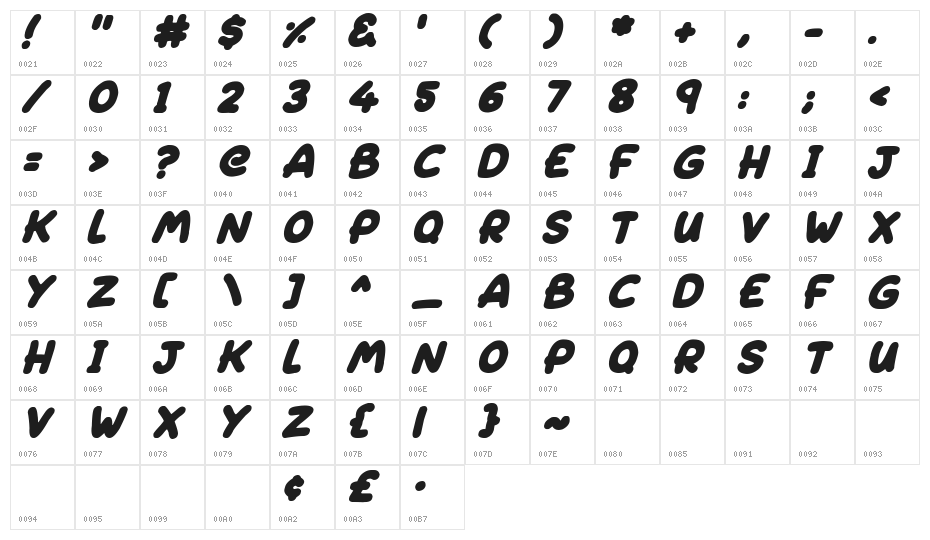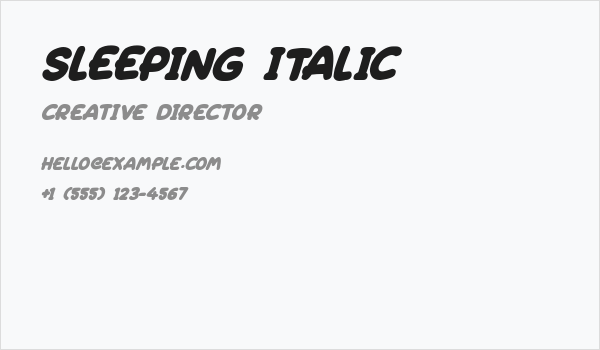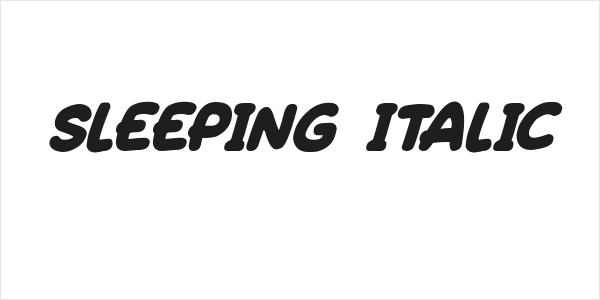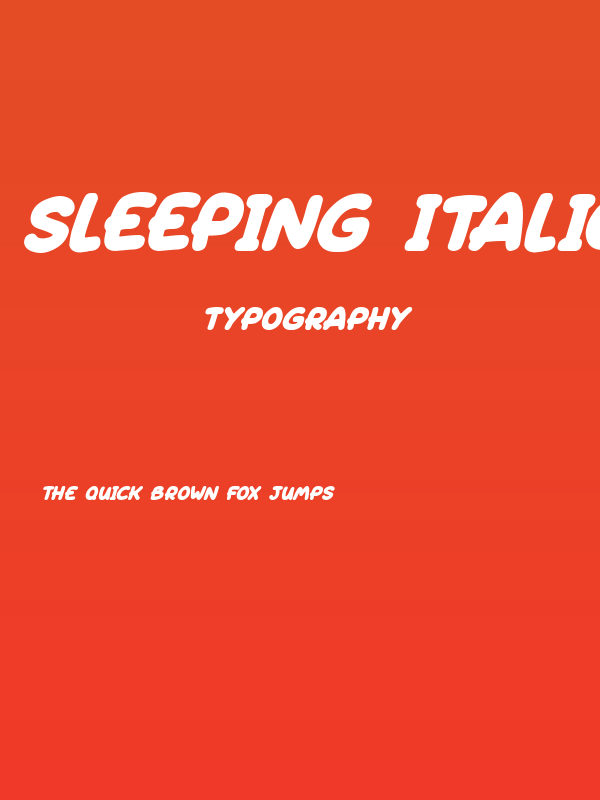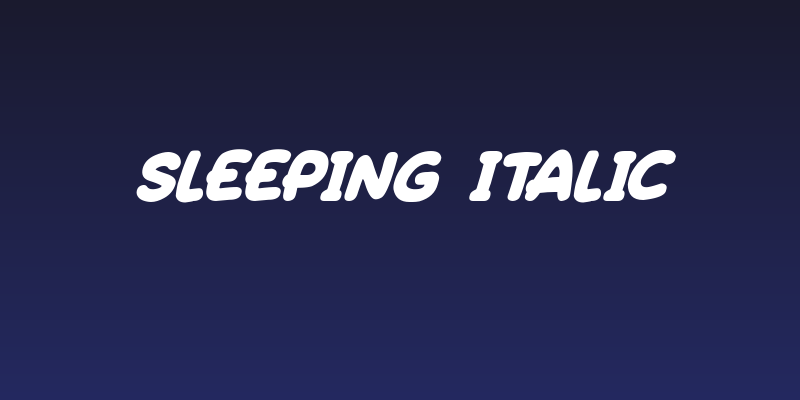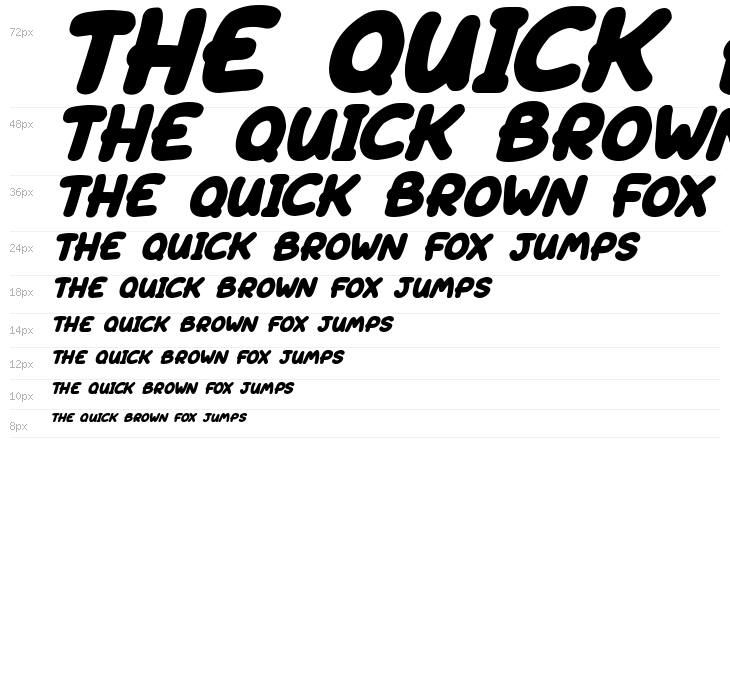
Sleeping Italic Font
Sleeping Italic Description
This font features a bold, playful style with a handwritten appearance. The letters are rounded and slightly slanted, giving it an informal and friendly look. The strokes are thick and consistent, providing a strong visual impact. The characters are closely spaced, enhancing the compact and cohesive feel of the text. This font is highly legible and maintains a casual yet dynamic presence, making it suitable for various creative applications.
| Proposed Projects | Ideal for children's books, playful branding, casual invitations, and creative posters. |